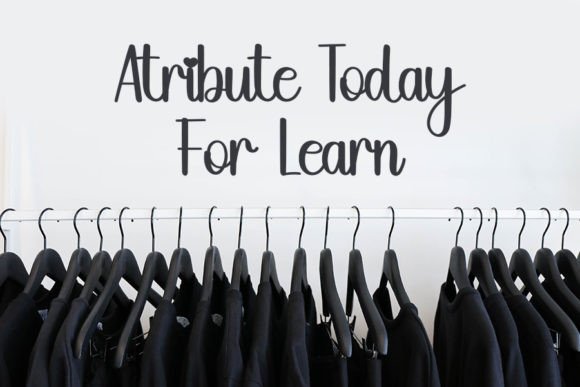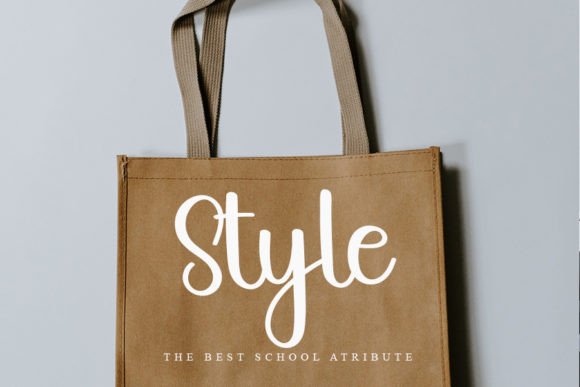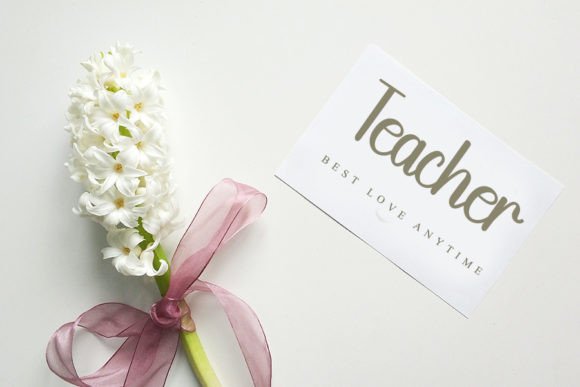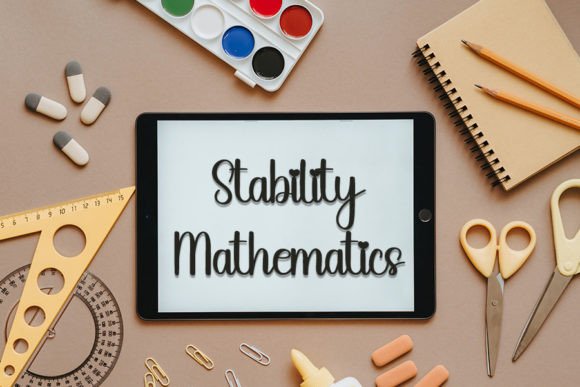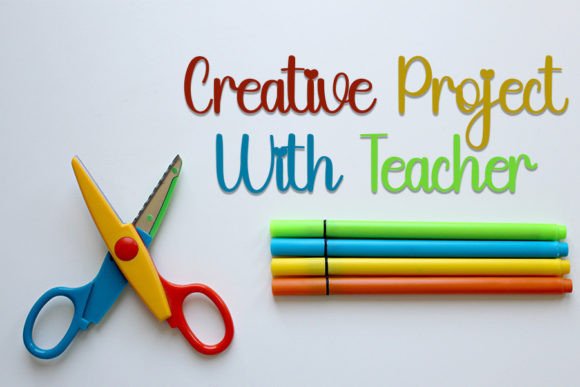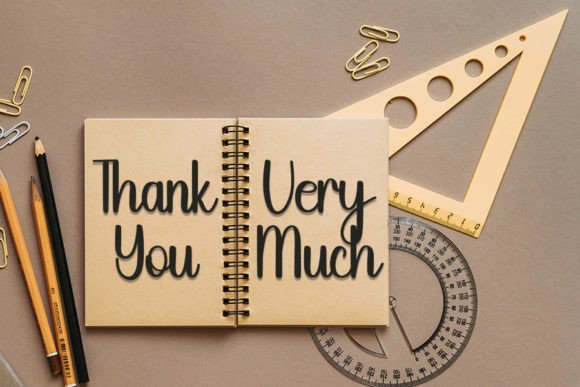
Get Ready for a Fresh Start with the Perfect Font
As I sat in my cozy home office, surrounded by half-empty coffee cups and scattered design materials, I felt a familiar excitement building up. It’s that time of the year again – the back to school season. I love how this period brings a sense of renewal and creativity, inspiring designers like me to think outside the box and come up with something truly special.
And that’s exactly what the Back to School Font is all about. This elegant, refined handwritten font is designed to make your designs stand out. Perfect for logos, branding, invitations, stationery, wedding designs, social media posts, and much more, this font is a valuable addition to any designer’s toolkit. With its PUA encoding, you can easily access all the amazing glyphs and ligatures, making it a breeze to create stunning designs that will leave a lasting impression.
Key Features of Back to School Font
• Font Family: Back to School Font is a unique and playful script font designed for educational and casual use.
• Unique Characteristics: Features a handwritten feel with subtle imperfections, giving it a personal and friendly touch.
Back to School Font Review
Overall, I think the Back to School Font is a cute and playful addition to any design project. It’s perfect for those fun, casual projects where you want to evoke a sense of nostalgia and whimsy. ✨ I love how it’s designed to resemble handwritten notes and chalkboard scrawls, it’s really unique and adds a lot of character to your designs.
The font also works well in titles and headings, it’s big and bold and grabs your attention. It’s also great for creating a sense of movement and energy, which is perfect for projects that need to convey a sense of excitement and enthusiasm. ✨ Another thing I like about this font is its versatility, it can be used for a wide range of projects from educational materials to marketing campaigns.
• ⚠️ Limited legibility: While the font is cute and fun, it can be difficult to read in certain contexts, especially at smaller sizes. This can make it challenging to use in situations where readability is a priority.
• ⚠️ Limited sophistication: While the font is perfect for casual projects, it may not be the best choice for more formal or professional projects. It can come across as a bit too playful or childish.
Overall, I would recommend the Back to School Font for designers who are looking for a fun and unique way to add some personality to their projects. Just be aware of its limitations and use it judiciously. ✨
Tips for Getting the Most Out of the Back to School Font
Use the Back to School font for creative projects such as:
• Back to school posters and flyers
• Teacher resource materials
• Student planners and organizers
Experiment with different font sizes and styles to create a visually appealing design.
The Back to School font is ideal for:
• Education-related projects
• Summer camp or workshop materials
• Children